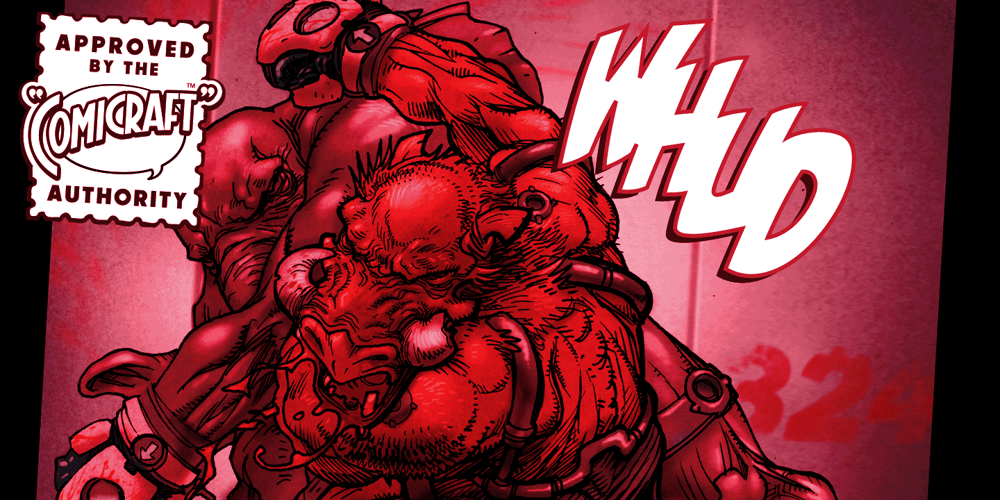
Biff Bam Boom
Biff Bam Boom font
Biff Bam Boom Font Family was designed by John Roshell and published by Comicraft. Biff Bam Boom contains 2 styles and family package options. Thrown from the pages of Spider-Man, Daredevil and Hulk comes BIFF BAM BOOM! Inspired by the Legendary Lettering Legerdemain of comics’ Silver Age, Biff Bam Boom is a font you can’t take a swing at without ending up with a broken nose. If you have any sense, duck and cover!